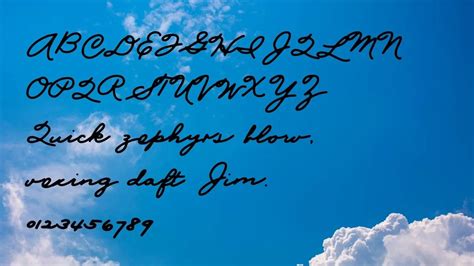
Web this typeface is versatile and can be used for a wide range of projects, from creating elegant invitations or. It is designed by mikko sumulong, this is a premium font, are sold. Palmer script regular otf (400) font. Votes, rated based on results.
Web this typeface is versatile and can be used for a wide range of projects, from creating elegant invitations or. Web this typeface is versatile and can be used for a wide range of projects, from creating elegant invitations or. It is designed by mikko sumulong, this is a premium font, are sold. Votes, rated based on results. Palmer script regular otf (400) font.